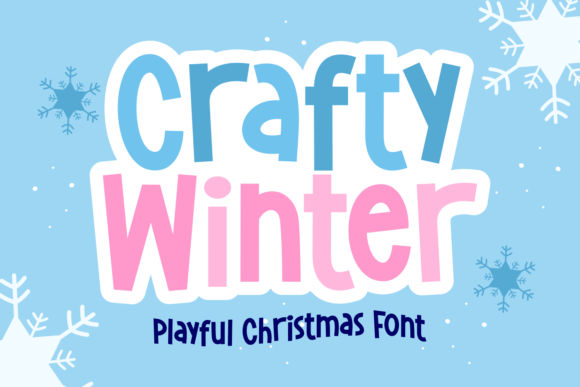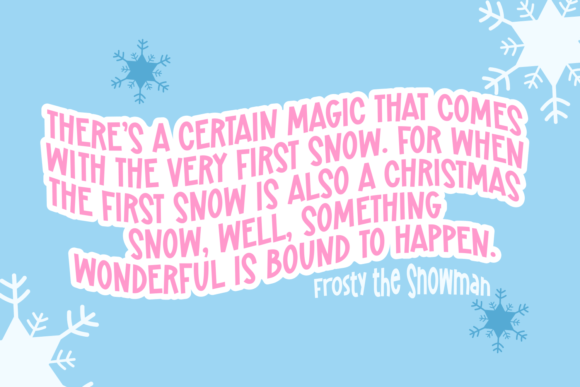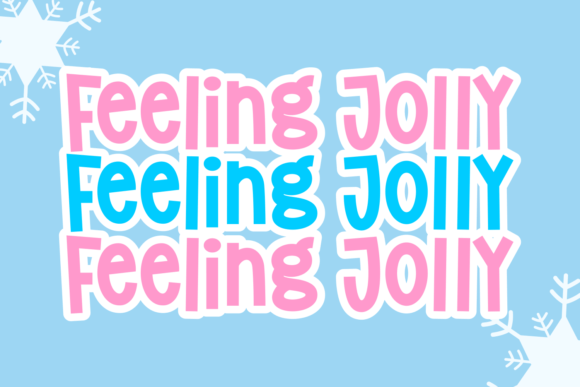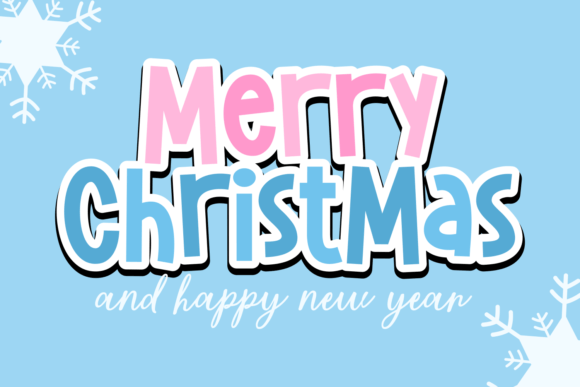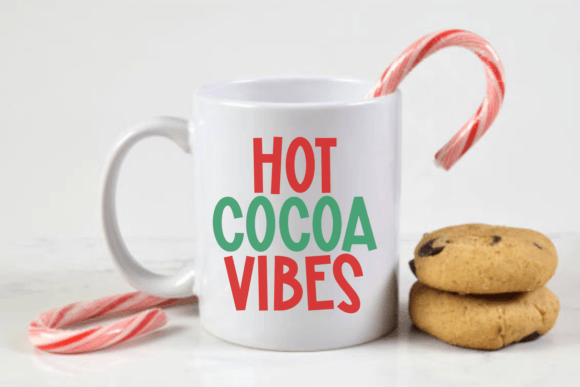
Crafty Winter Font
Crafty Winter is a whimsical and festive handwritten Christmas font that adds a playful touch to your holiday designs. With its charming and handcrafted feel, this font captures the joyful spirit of the season, making it perfect for greeting cards, gift tags, and any project that calls for a dash of holiday cheer. Crafty Winter’s quirky letterforms bring a sense of warmth and creativity, making your text feel like it was written with care by Santa’s very own elves.